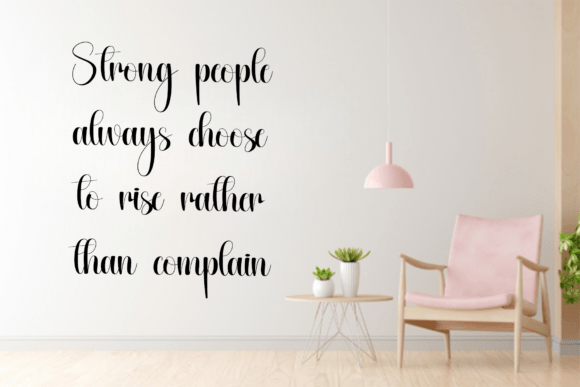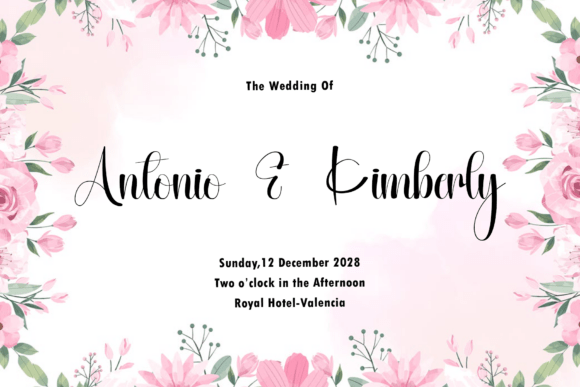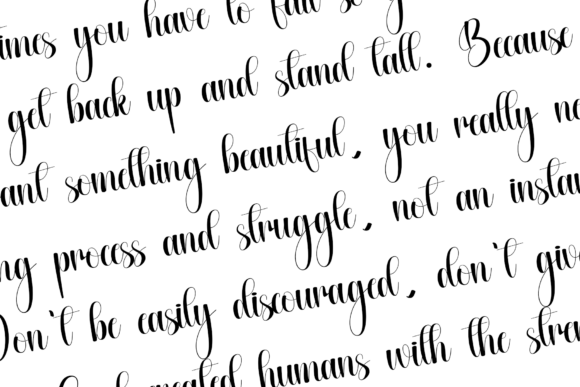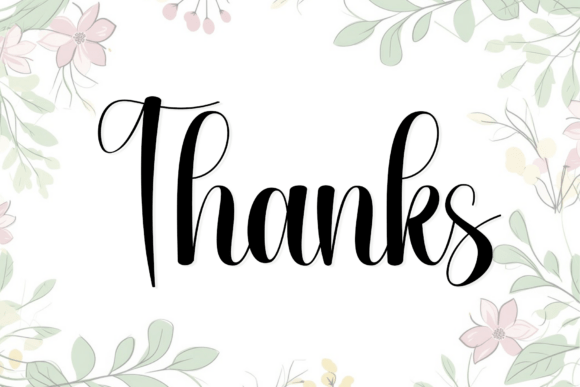
Discover the Elegance of Anytime Font: Elevate Your Design with a Personal Touch
In the realm of digital design, the quest for a typeface that conveys a personal, human-centric touch is relentless. This is where Anytime Font steps in, a new-style handwritten script font that redefines the art of digital communication. With its slender, rhythmic anatomy and fluid, connected flow, Anytime captures the essence of modern calligraphy, bringing an extraordinary level of elegance and sophistication to your digital canvas.
The Unique Personality of Anytime Font
Anytime Font is distinguished by its elegant, sweeping loops and a balanced monolinear stroke, which together create a sense of effortless grace. The tall ascenders and fluid connections between letters contribute to its dynamic and rhythmic flow, making it a perfect choice for designs that require a touch of personal warmth and authenticity. Whether you’re crafting romantic wedding stationery, boutique lifestyle branding, or high-end product packaging, Anytime Font infuses your visual identity with a sense of professional warmth and polished artisanal beauty.
Ideal Applications for Anytime Font
The versatility of Anytime Font makes it suitable for a wide range of design applications. Here are a few areas where this typeface truly shines:
- Romantic Wedding Stationery: Add a touch of elegance and romance to your wedding invitations, save-the-date cards, and other stationery with Anytime Font.
- Boutique Lifestyle Branding: Elevate your brand’s visual identity with a sophisticated and artisanal feel that resonates with your target audience.
- Personalized Social Media Signatures: Stand out on social media with a unique and stylish signature that reflects your personality or brand.
- High-End Product Packaging: Convey luxury and quality through your product packaging with a font that exudes sophistication and elegance.
Why Choose Anytime Font?
In a digital landscape dominated by generic typefaces, Anytime Font offers a refreshing alternative. Here are a few reasons why designers and crafters are gravitating towards this beautiful script font:
- Effortless Elegance: Anytime Font brings a level of sophistication and elegance to your designs without appearing overly formal or rigid.
- Human-Centric Touch: Its handwritten nature adds a personal touch to your digital communications, making them feel more approachable and heartfelt.
- Versatility: Whether you’re working on digital projects or print materials, Anytime Font adapts seamlessly to various design contexts.
- Authenticity: With its fluid connections and rhythmic flow, Anytime Font captures the authenticity of modern calligraphy, setting it apart from more conventional typefaces.
Tips for Using Anytime Font Effectively
To maximize the impact of Anytime Font in your designs, consider the following tips:
- Pair with Complementary Fonts: Combine Anytime Font with simpler, sans-serif fonts to create visual contrast and hierarchy in your designs.
- Adjust Letter Spacing: Experiment with letter spacing to enhance the flow and readability of your text, especially in longer passages.
- Use Size and Color Strategically: Employ size and color variations to draw attention to key messages or to add depth and interest to your designs.
- Emphasize Personalization: Take advantage of Anytime Font’s personal feel by incorporating custom illustrations or graphics that complement its elegant style.
Anytime Font is more than just a typeface; it’s a design tool that enables you to infuse your digital communications with a personal, human-centric touch. Its elegant loops, fluid connections, and balanced monolinear stroke make it an ideal choice for designers and crafters looking to elevate their projects with a sense of effortless grace and polished artisanal beauty. Whether you’re creating romantic wedding stationery, boutique lifestyle branding, or high-end product packaging, Anytime Font ensures that every word feels like a heartfelt, hand-penned note.
Discover the elegance of Anytime Font and transform your designs with a typeface that speaks to the heart. Experience the beauty of modern calligraphy in your digital canvas and make your mark with a font that is as unique and special as your designs.